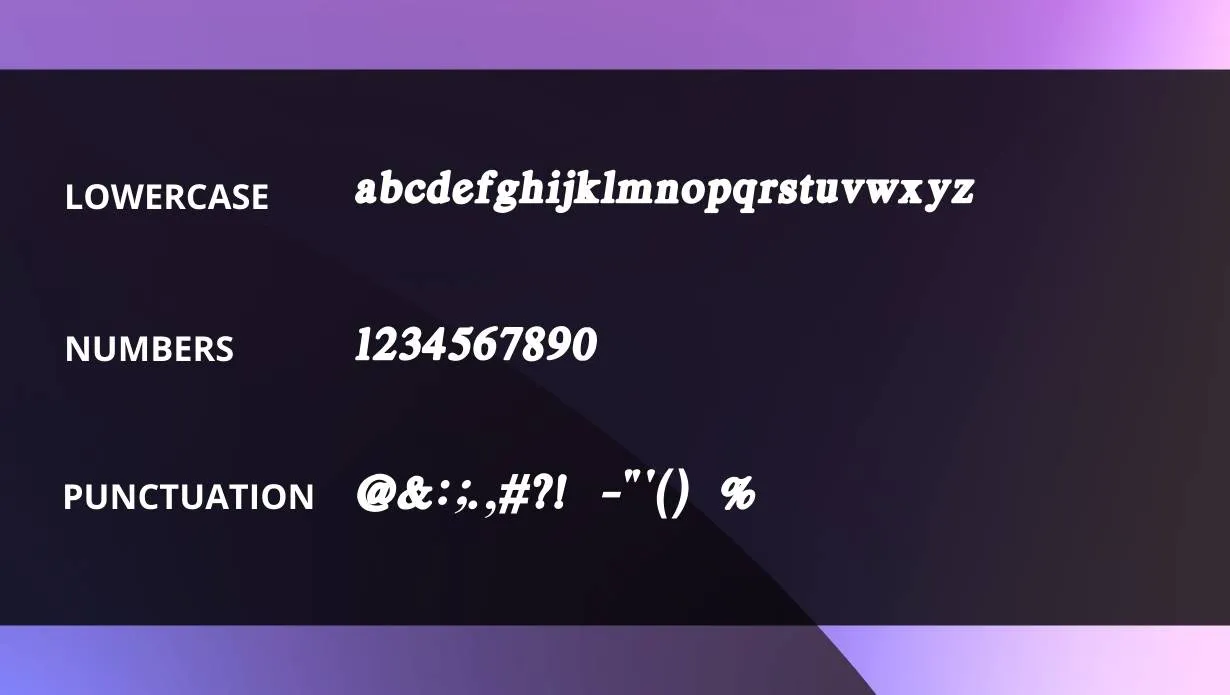
Rolling Stone Font is a distinctive and captivating font that was exclusively made for Rolling Stone magazine. This font is inspired by the magazine’s original logo, crafted by Art Chantry. Used by the magazine for more than 50 years, this font remains a favorite among their readers.
| Designer | Art Chantry |
| Style | Display |